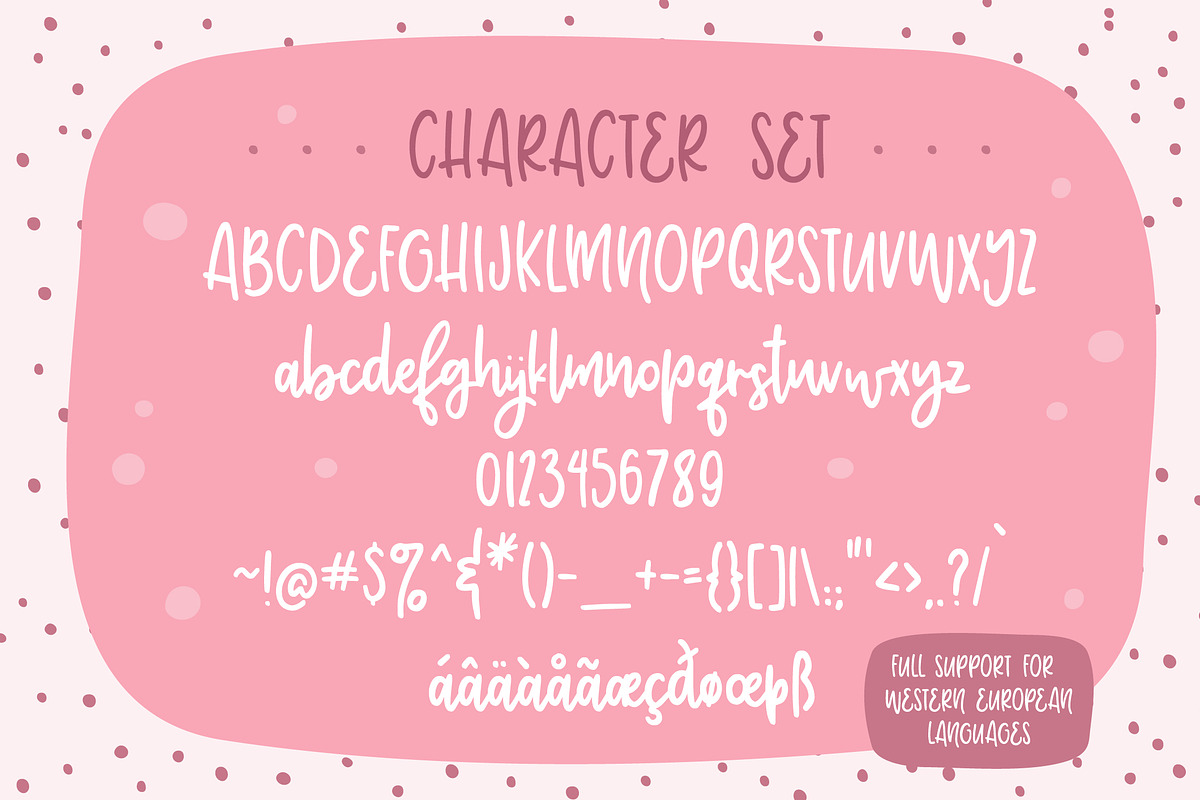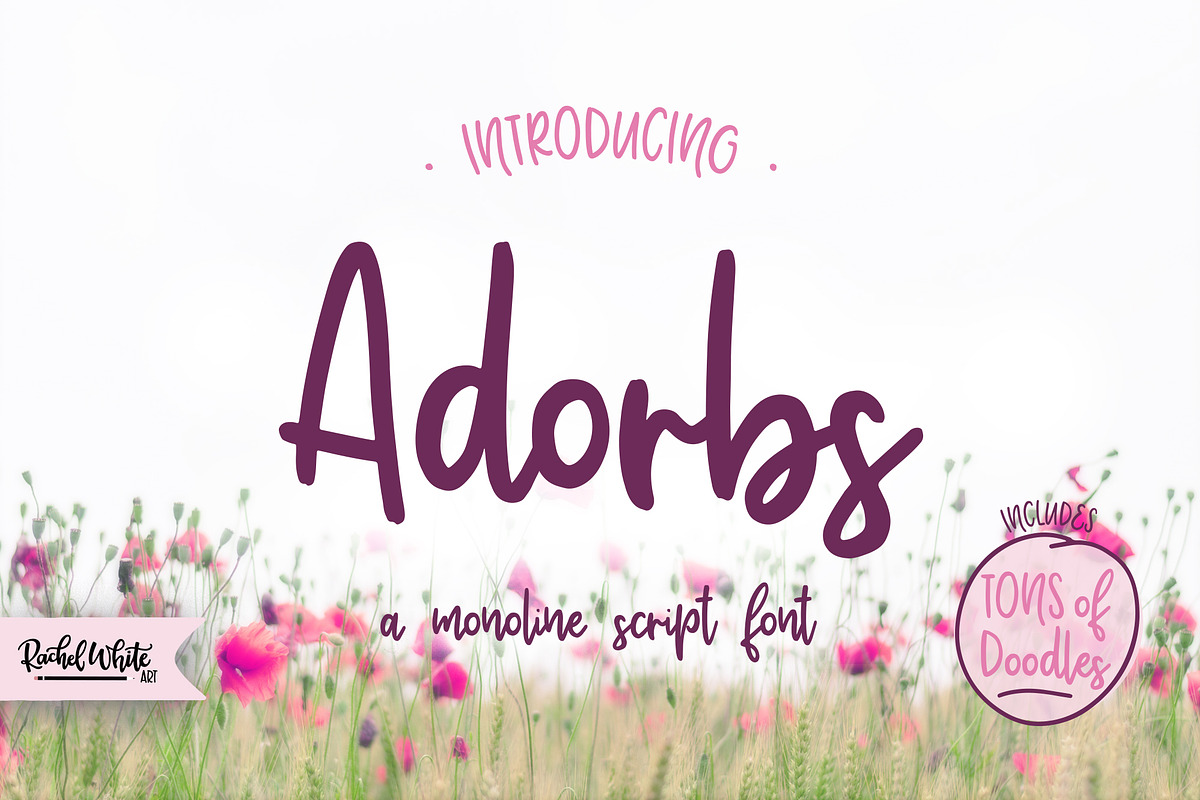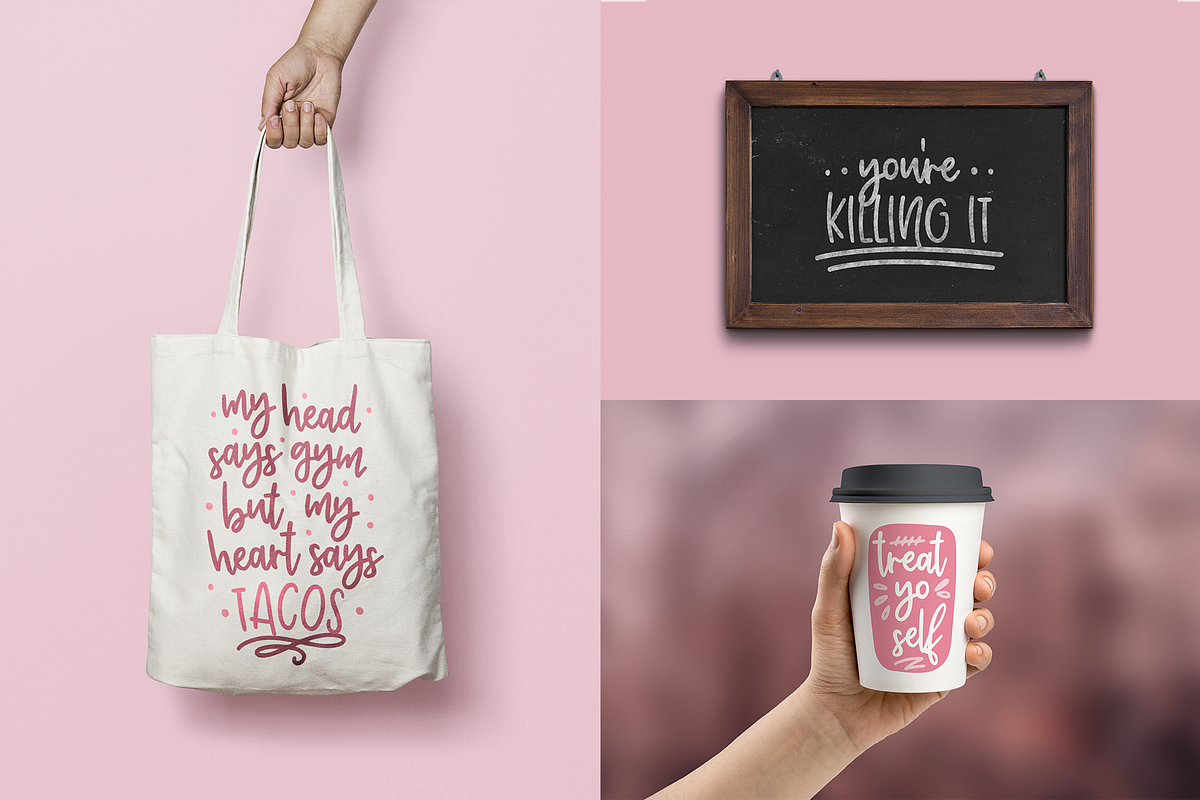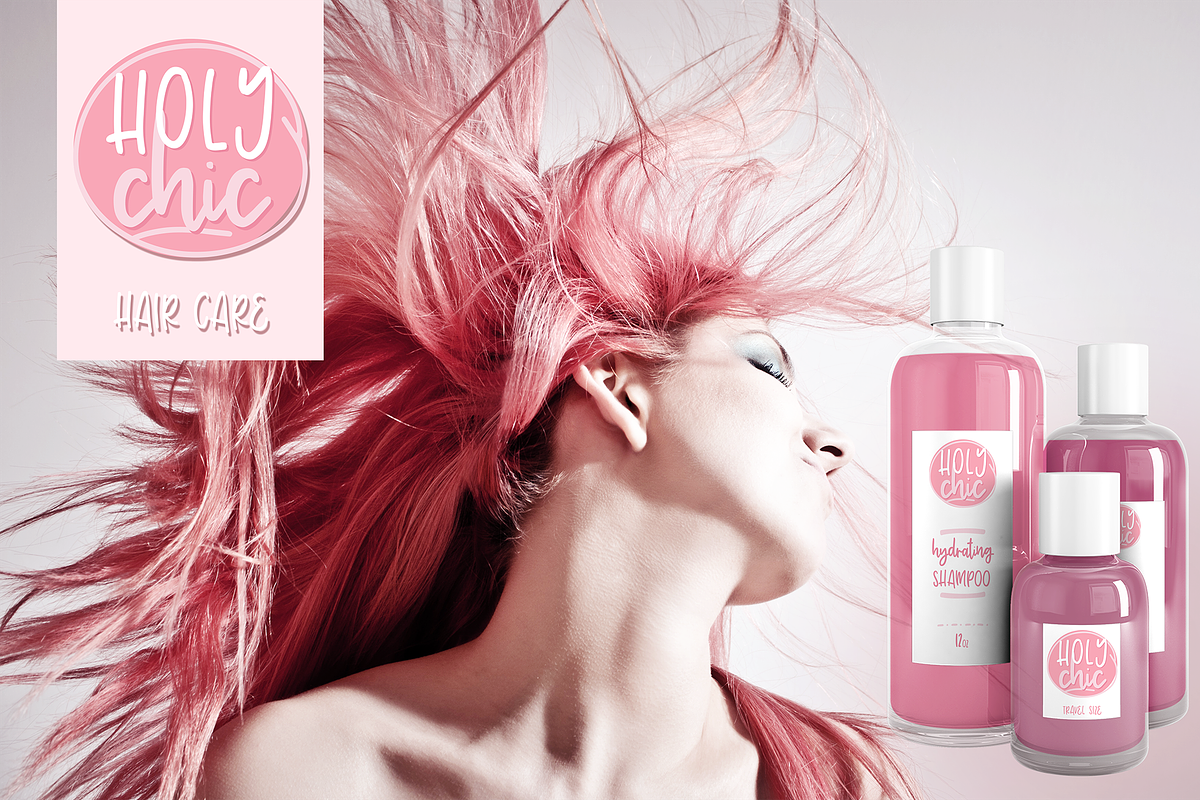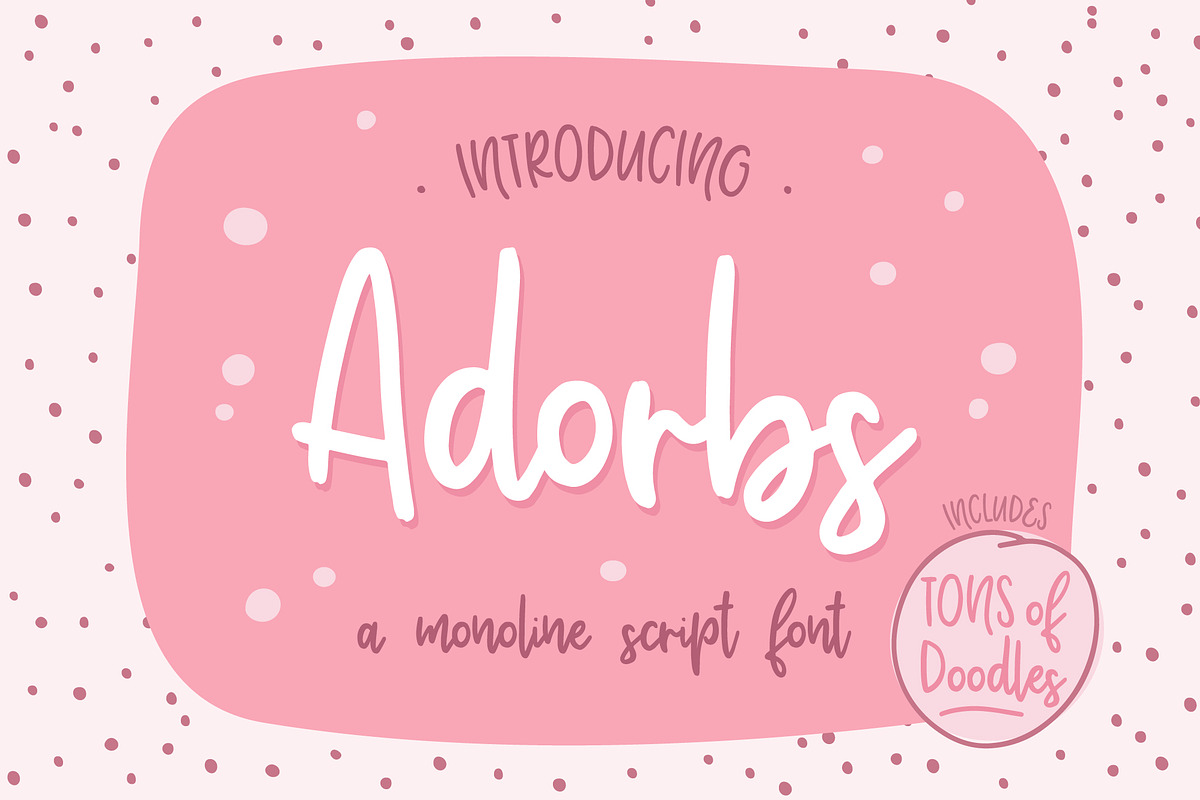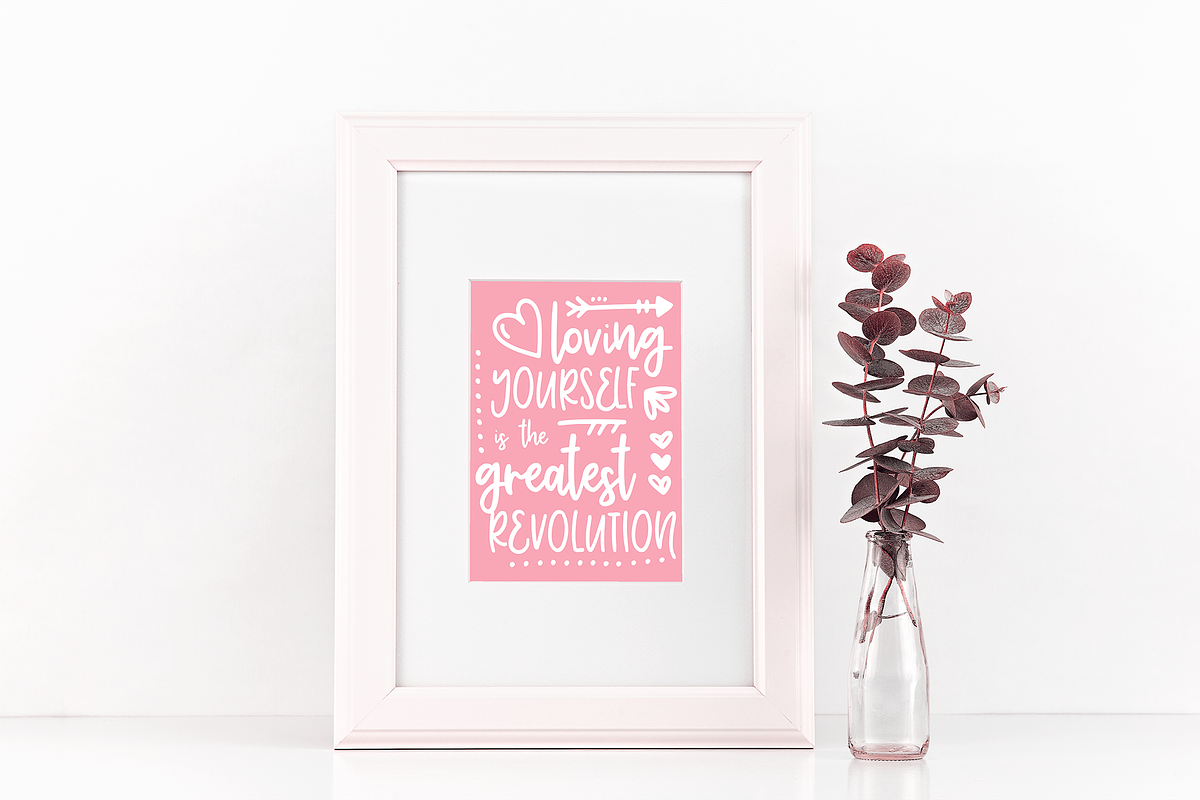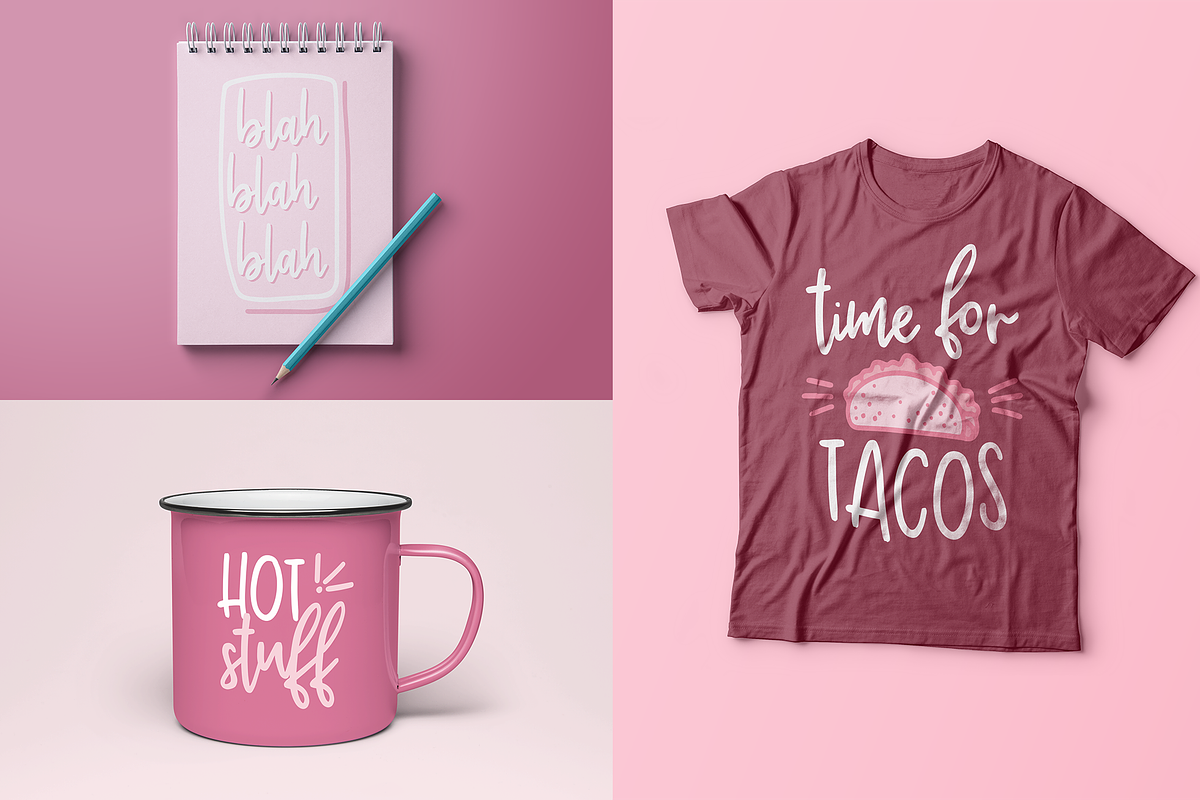
Adorbs, a monoline script font
Adorbs is a monoline script font with smooth curves and a simple, playful personality. It’s great for greeting cards, branding, planner stickers, social media graphics, and anything that needs a touch of handwritten charm.
Its clean, even stroke weight makes it easy to read while still feeling fun and friendly—perfect for projects that want to be cute without being fussy.
Great for: Planners, stickers, quotes, logos, social posts, stationery, packaging
TIP: Mix and match all caps with the lowercase.
TIP #2: Turn on OpenType features. Adorbs has a few ligatures you'll want to use.
- Adorbs has a few ligatures you'll want to use.